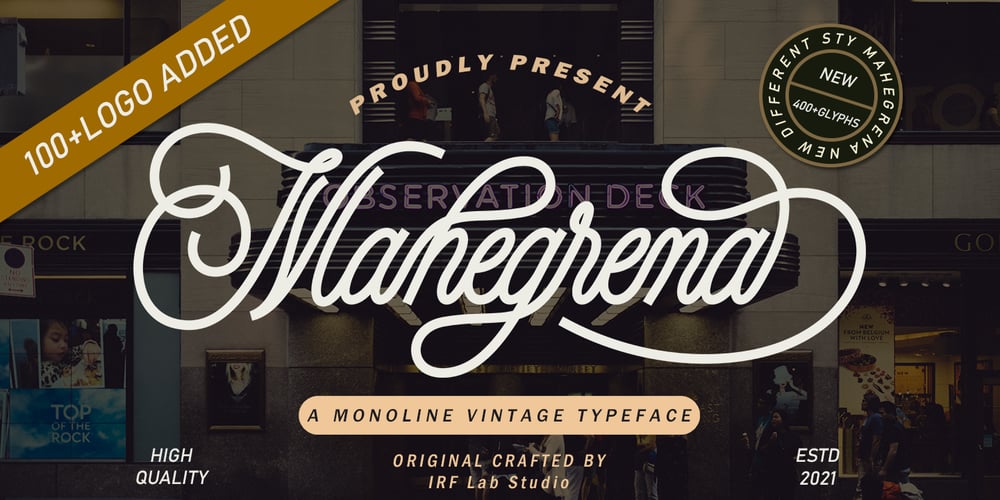
Mahegrena Font Family was designed by M Irvan Syouqi S and published by IRF Lab Studio. Mahegrena contains 1 styles and family package options. Mahegrena is a monoline script font. This another collection of script is perfect for your next personal branding project, excellent for “Logotype”. Mahegrena have a smooth edges, so this font gives an authentic handcrafted feel style.Mahegrena is perfect choice for people looking for clean, modern, minimalist, elegant, beauty design styles.Suitable for almost any graphic designs such as logo, branding materials, business cards, gift cards, t-shirt, cover, thumbnail, print, poster, photography, quotes .etcThank You!